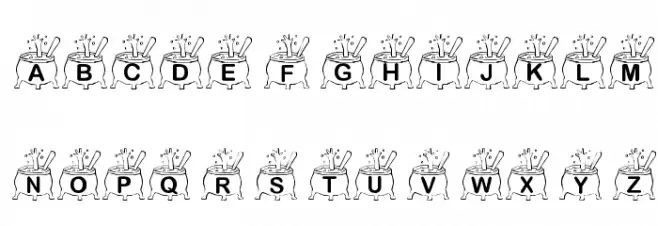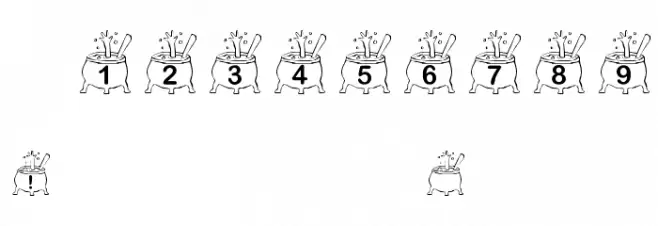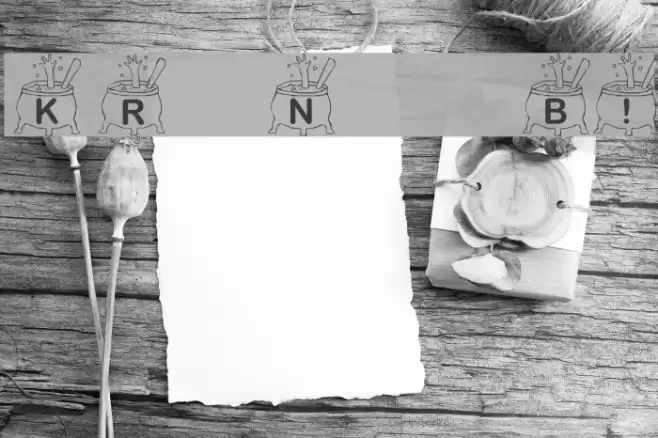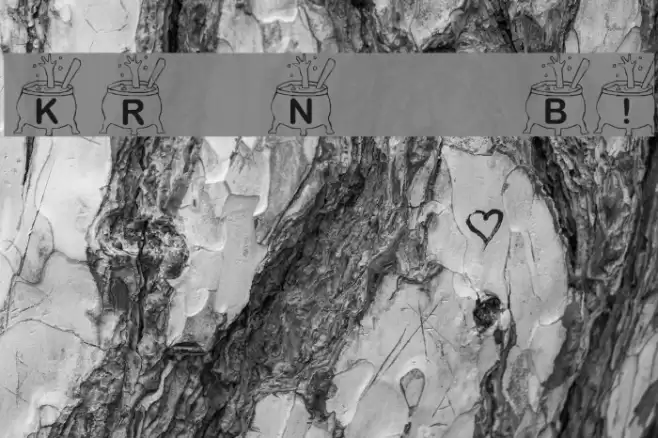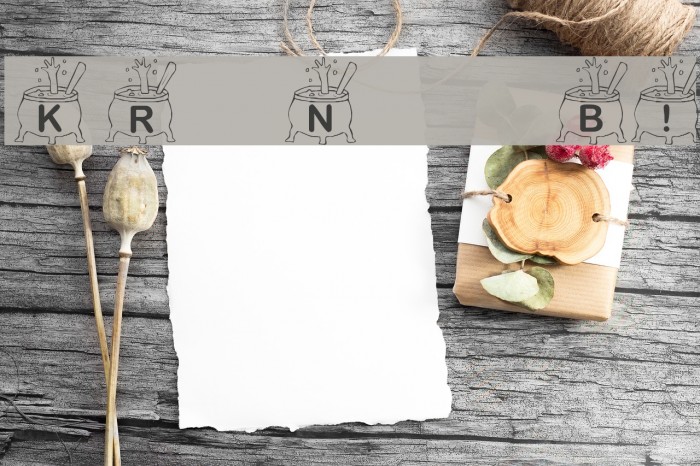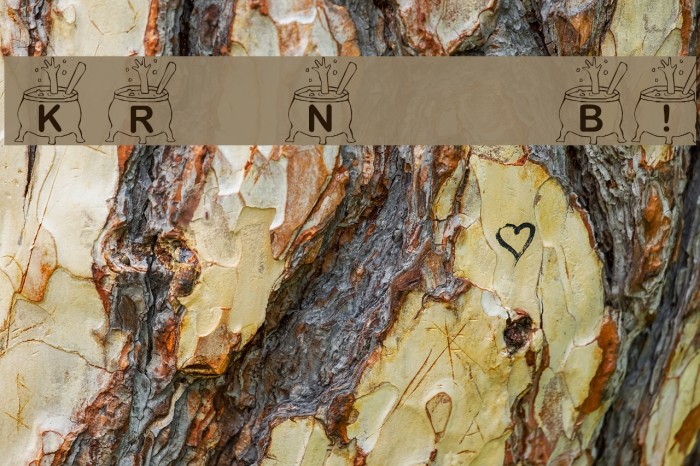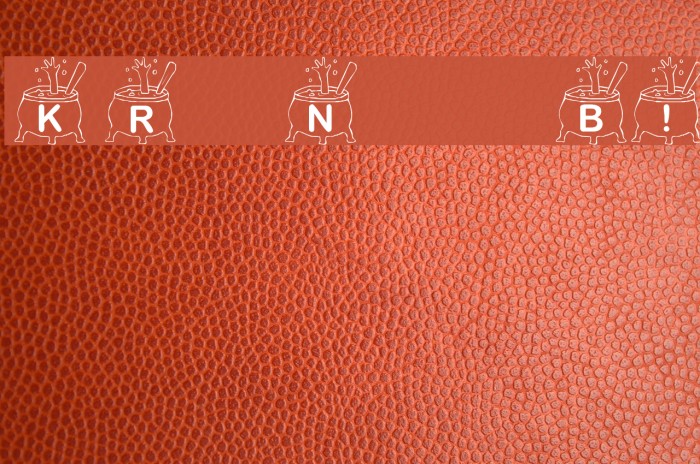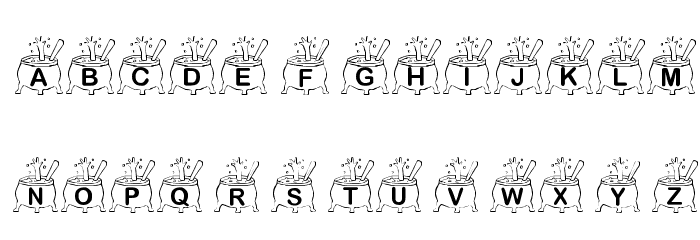
KR Nght's Brew!
This playful and whimsical font features each character enclosed within a bubbling cauldron, adding a magical and enchanting touch to the design. The letters are bold and uppercase, with a consistent thickness that ensures readability. The numbers follow the same style, maintaining the theme throughout. The unique design makes it ideal for projects that require a touch of fantasy or a playful atmosphere. The font's decorative nature is perfect for themed events, children's parties, or Halloween-related materials. Its distinct style captures attention and adds a creative flair to any project.
A whimsical font with characters inside bubbling cauldrons, perfect for fantasy themes.
- Proposed Projects: Ideal for themed events, children's parties, Halloween materials, and fantasy-themed designs.
- Overall Style: Decorative